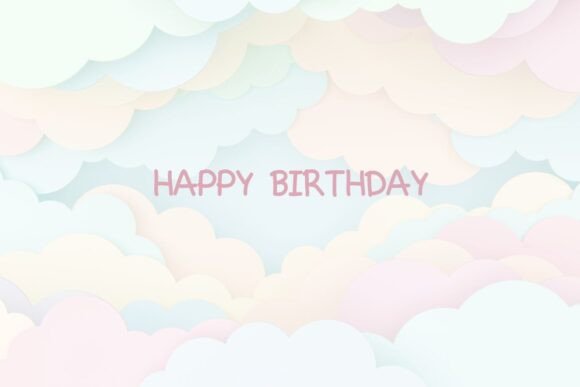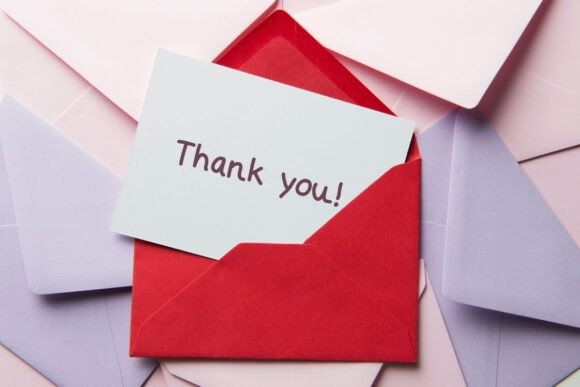
Cookies and Cream Font: The Sweetest Addition to Your Design Projects
Are you looking for a font that adds a touch of warmth and charm to your design projects? Look no further than the Cookies and Cream font! This delightful handwritten font is perfect for creating inviting designs that feel personal and authentic. With its smooth, flowing lines and cozy, homemade feel, Cookies and Cream is ideal for a wide range of projects, from logos and product packaging to greeting cards and social media posts.
The Characteristics of Cookies and Cream Font
Cookies and Cream is a handwritten font that exudes a sense of friendliness and approachability. Its smooth, flowing lines give it a natural and effortless feel, making it perfect for designs that require a personal touch. The font’s cozy, homemade quality makes it ideal for projects that require a warm and inviting aesthetic. Whether you’re designing for a food brand, a lifestyle blog, or simply looking to add a personal touch to your text, Cookies and Cream is the perfect choice.
Uses for Cookies and Cream Font
Cookies and Cream font is incredibly versatile and can be used for a wide range of design projects. Here are some ideas to get you started:
- Logos: Create a memorable and inviting logo for your business or brand with Cookies and Cream font.
- Product Packaging: Add a touch of warmth and charm to your product packaging with this delightful font.
- Greeting Cards: Create personalized and inviting greeting cards for special occasions with Cookies and Cream font.
- Social Media Posts: Add a touch of sweetness to your social media posts with this friendly and whimsical font.
- Lifestyle Blogs: Use Cookies and Cream font to add a personal touch to your lifestyle blog and make it feel more approachable and inviting.
Why Choose Cookies and Cream Font?
So, why choose Cookies and Cream font for your design projects? Here are just a few reasons:
- Unique and Eye-Catching: Cookies and Cream font is a unique and eye-catching addition to any design project.
- Personal and Authentic: This font adds a personal and authentic touch to your designs, making them feel more inviting and approachable.
- Versatile: Cookies and Cream font is incredibly versatile and can be used for a wide range of design projects.
- Easy to Read: This font is easy to read and understand, making it perfect for designs that require a clear and concise message.
Tips for Using Cookies and Cream Font
Here are a few tips for using Cookies and Cream font in your design projects:
- Use it for Headings: Cookies and Cream font is perfect for headings and titles, adding a touch of warmth and charm to your designs.
- Pair it with Other Fonts: Experiment with pairing Cookies and Cream font with other fonts to create a unique and eye-catching combination.
- Use it for Body Text: This font is also suitable for body text, adding a personal and authentic touch to your designs.
- Experiment with Colors: Try experimenting with different colors to find the perfect combination for your design project.
| Font Name | Cookies and Cream Font |
| Author | Slalon Design |
In conclusion, Cookies and Cream font is a delightful handwritten font that adds warmth and charm to any design project. With its smooth, flowing lines and cozy, homemade feel, this font is perfect for creating inviting designs that feel personal and authentic. Whether you’re designing for a food brand, a lifestyle blog, or simply looking to add a personal touch to your text, Cookies and Cream font is the perfect choice. So why not give it a try and see the difference it can make in your design projects?